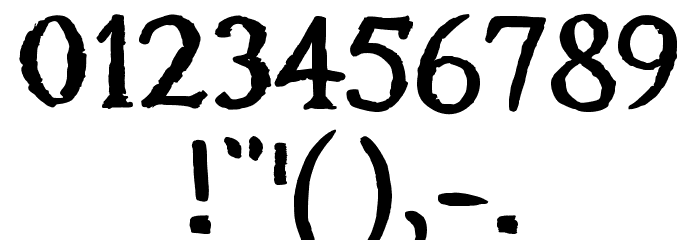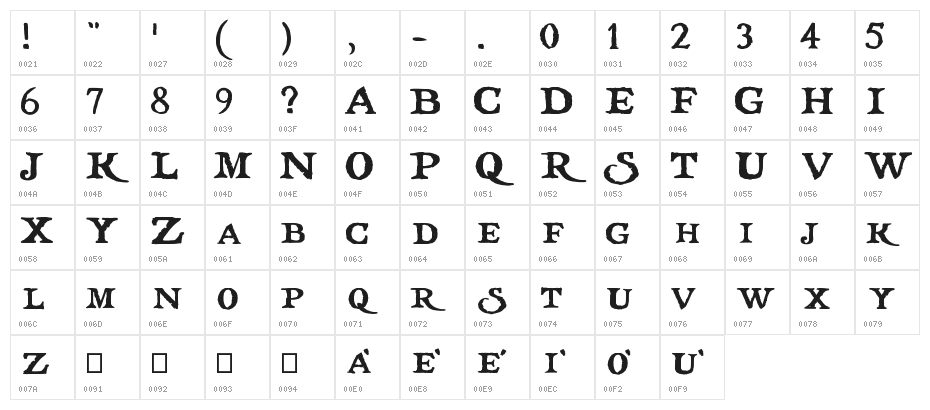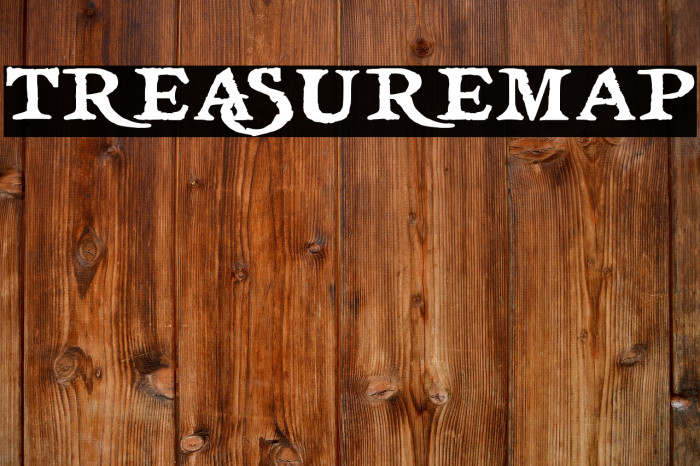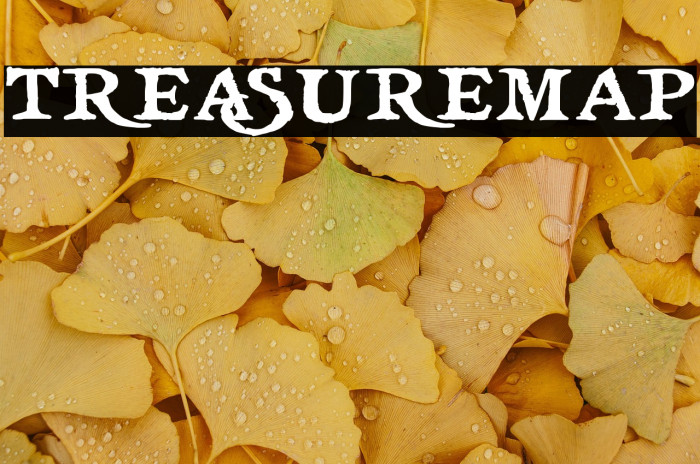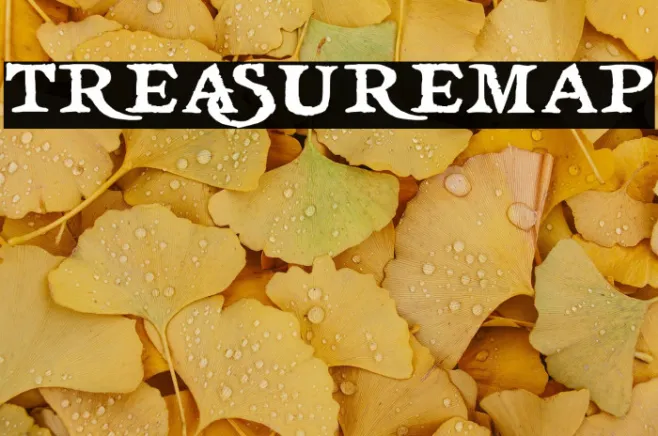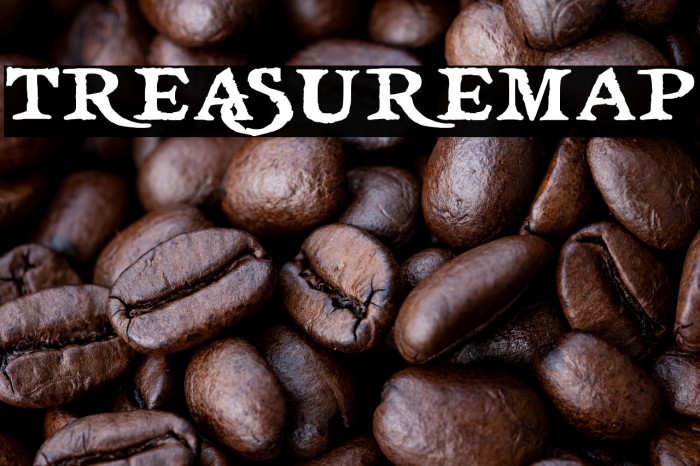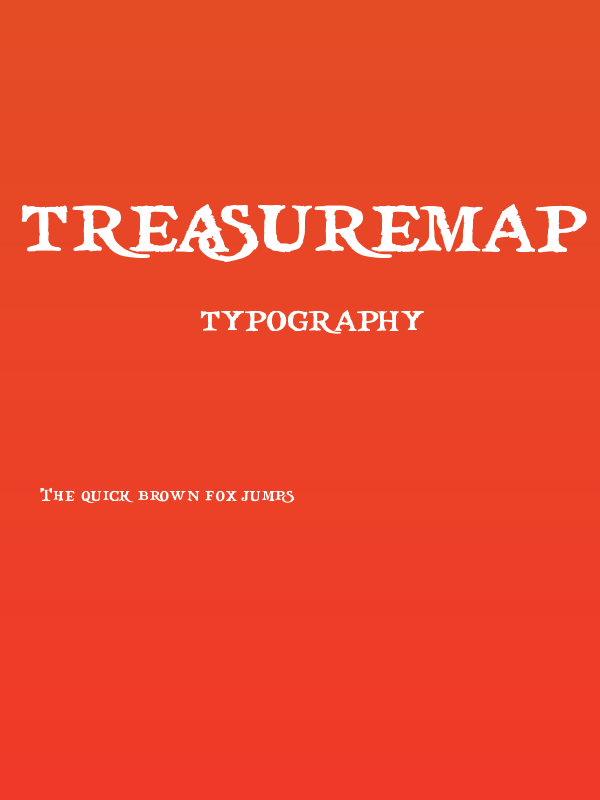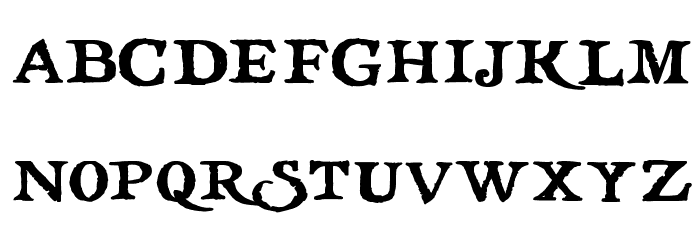
treasuremap Font
treasuremap Description
This font exudes a rugged and adventurous feel, reminiscent of old pirate maps and treasure hunts. The characters have a hand-drawn quality with uneven strokes and slight imperfections that add to its charm. The uppercase letters are bold and commanding, while the lowercase letters maintain a consistent style with a slightly more delicate touch. Numbers and special characters follow the same aesthetic, ensuring a cohesive look across all text. The font's unique style makes it ideal for projects that require a sense of mystery and exploration.
| Use Case | Headlines, Logos, Themed Designs |
| Proposed Projects | Perfect for themed events, escape room branding, adventure games, and historical or fantasy book covers. |